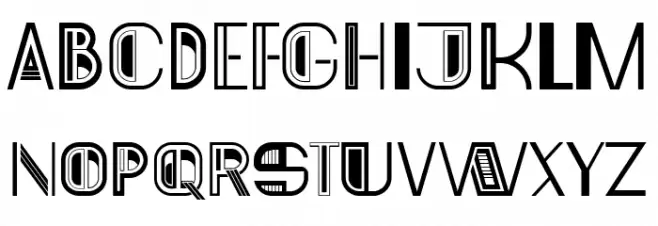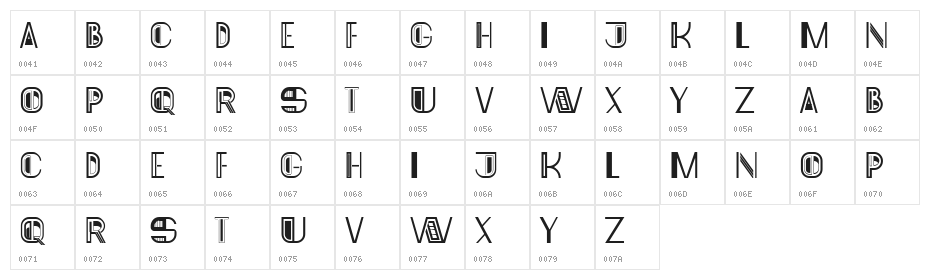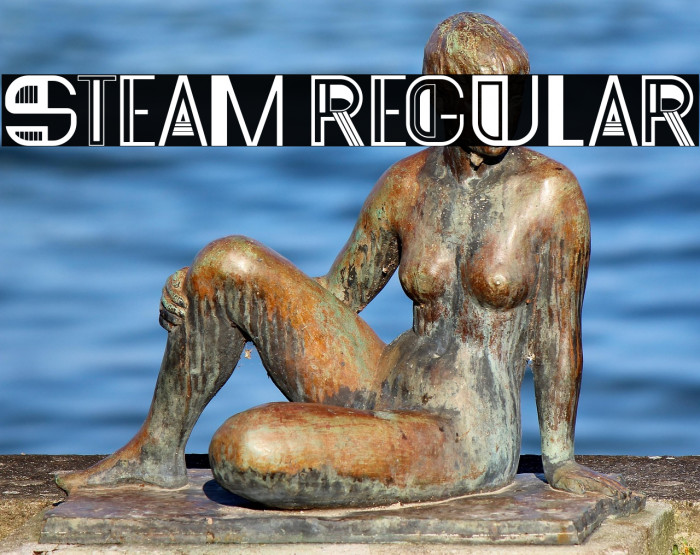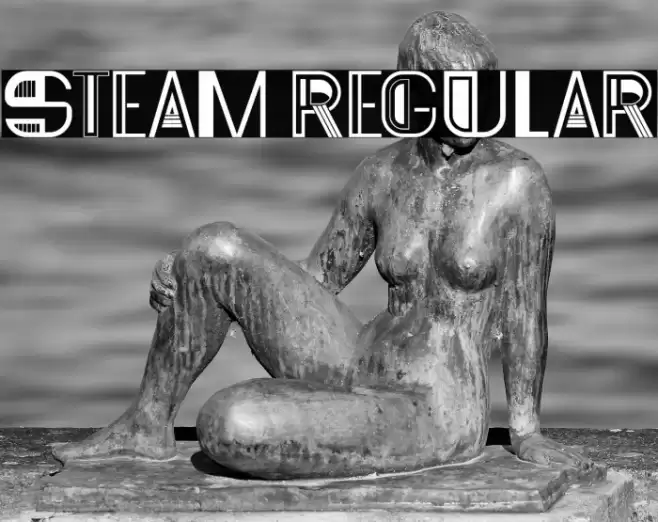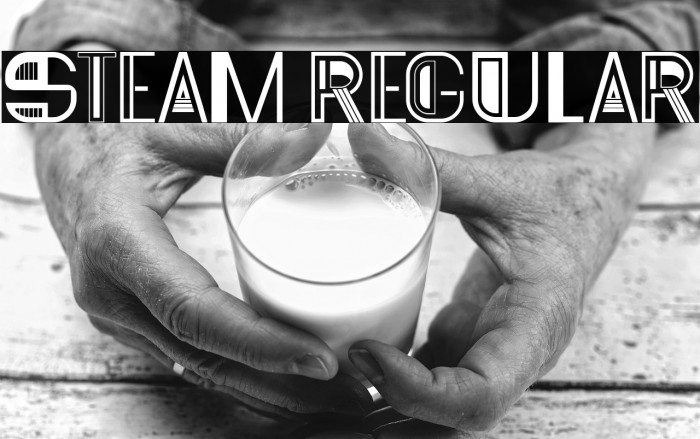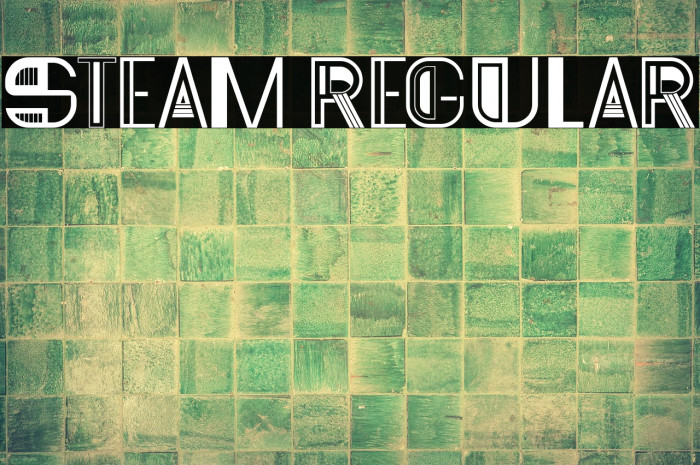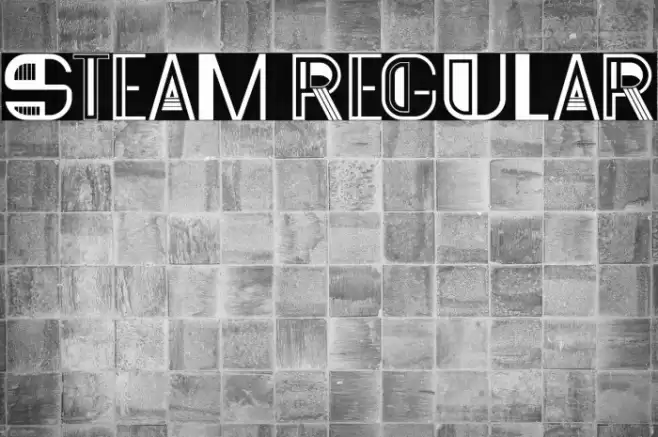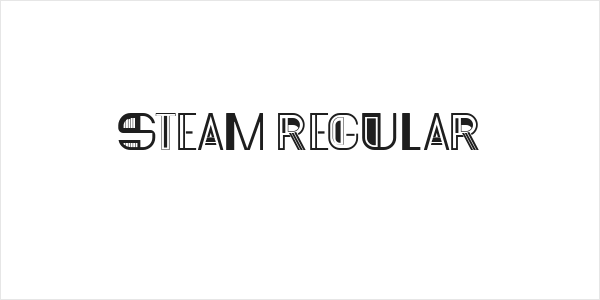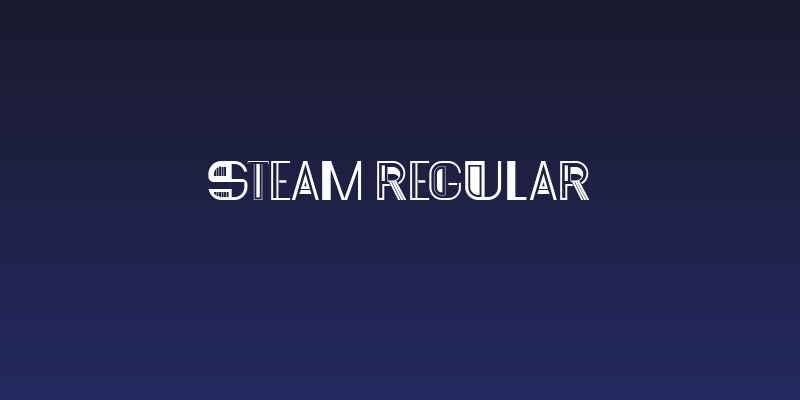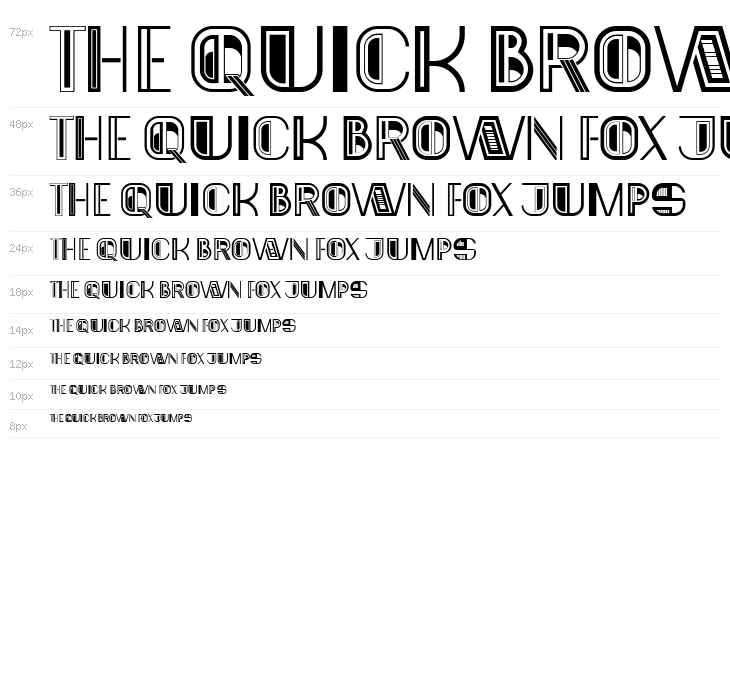
This font features a unique and modern design with a distinct geometric and industrial feel. Each letter is crafted with a combination of bold and thin lines, creating a striking contrast that draws attention. The uppercase letters are particularly notable for their innovative use of negative space and line breaks, giving them a futuristic and dynamic appearance. The font's style is both decorative and functional, making it suitable for a variety of creative projects. Its clean lines and structured form make it ideal for use in branding, advertising, and digital media where a contemporary and edgy look is desired.
| Use Case | Logos, Headlines, Branding |
| Proposed Projects | Ideal for branding, advertising, digital media, and any project requiring a contemporary and edgy look. |